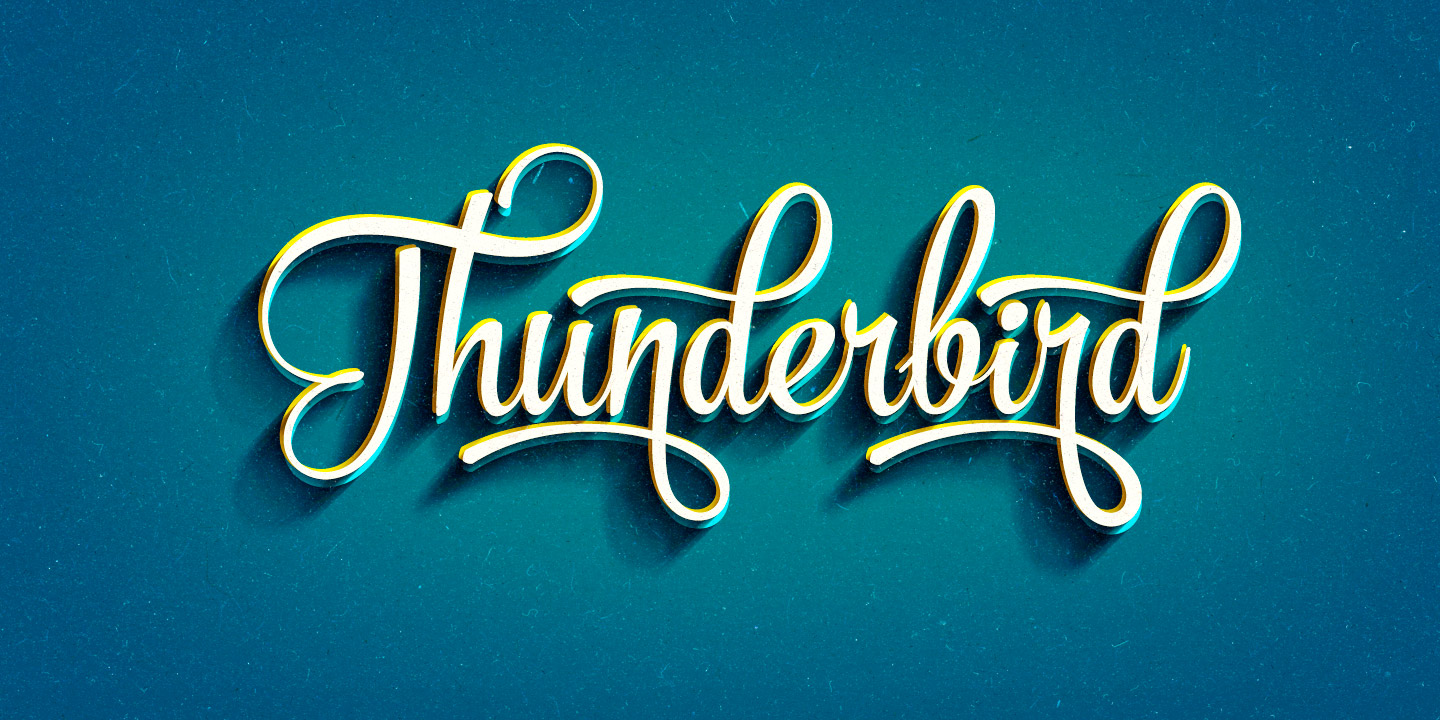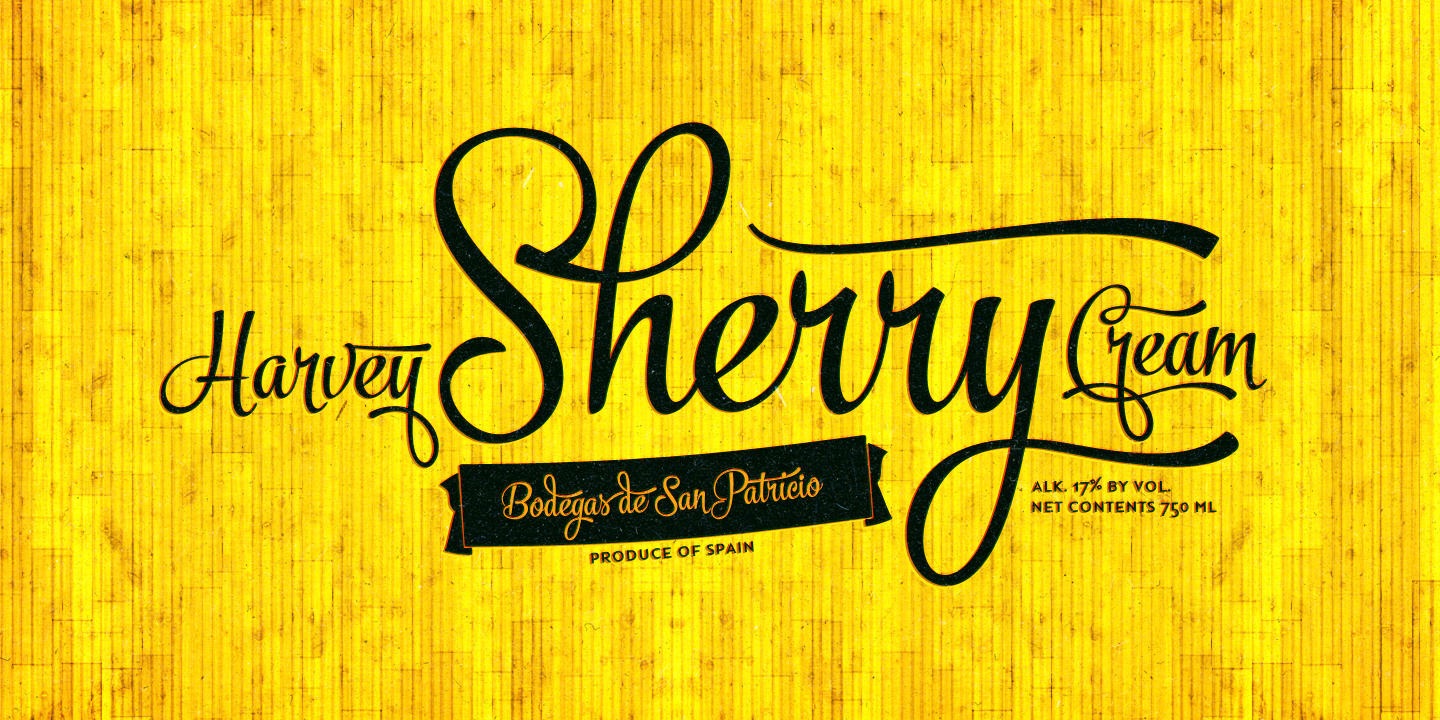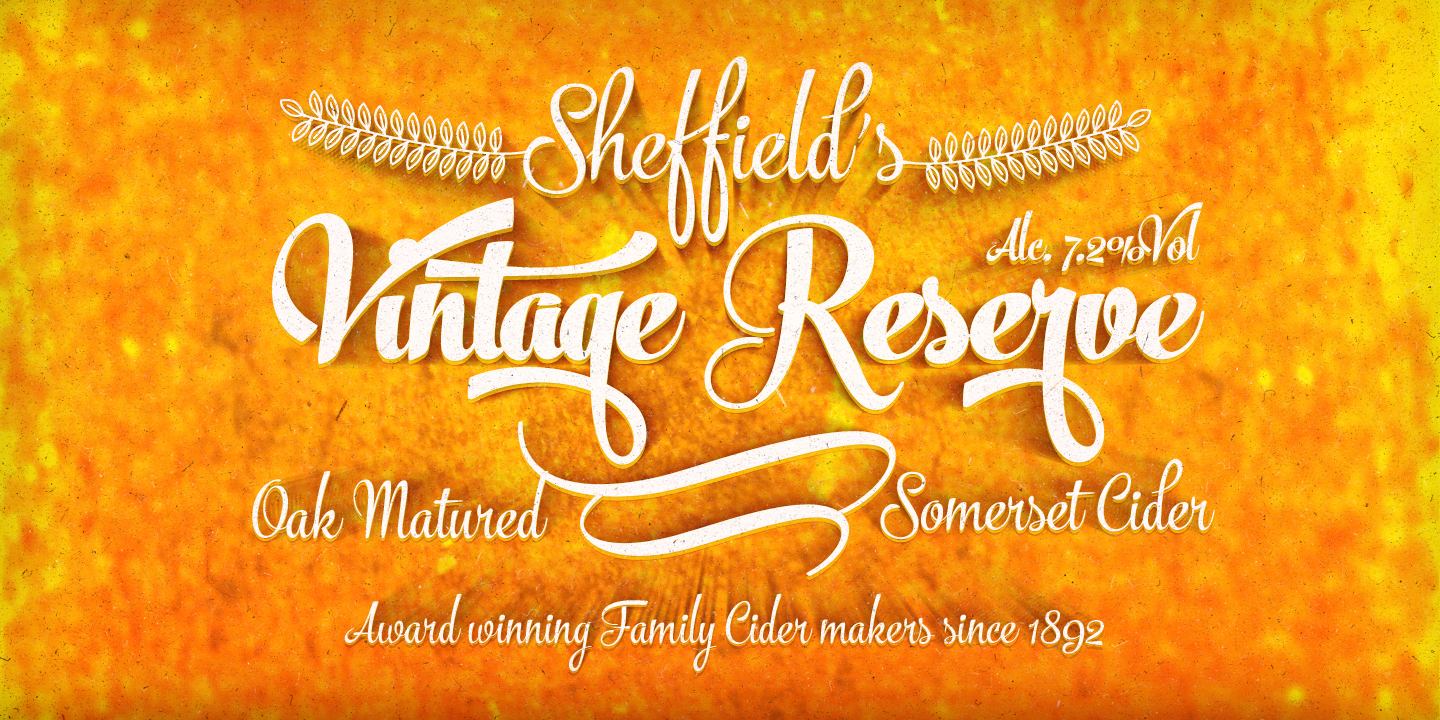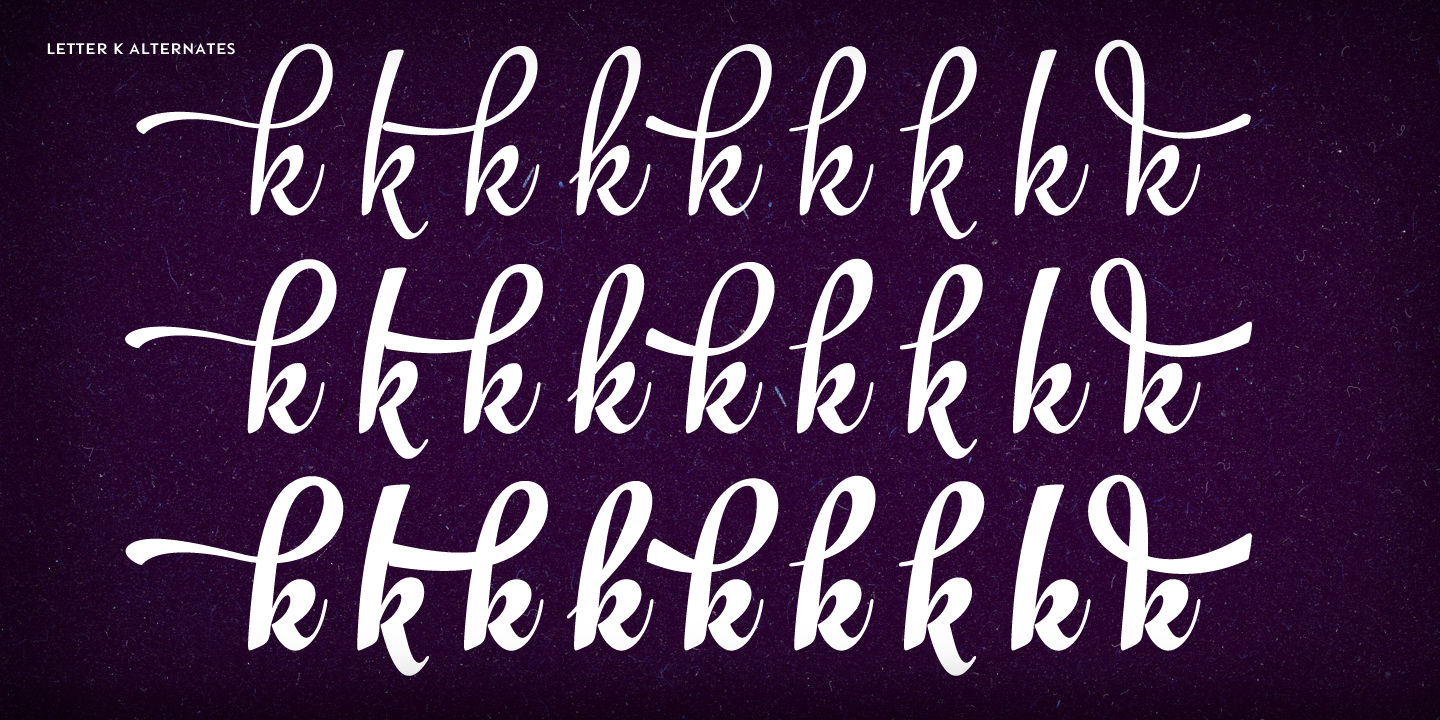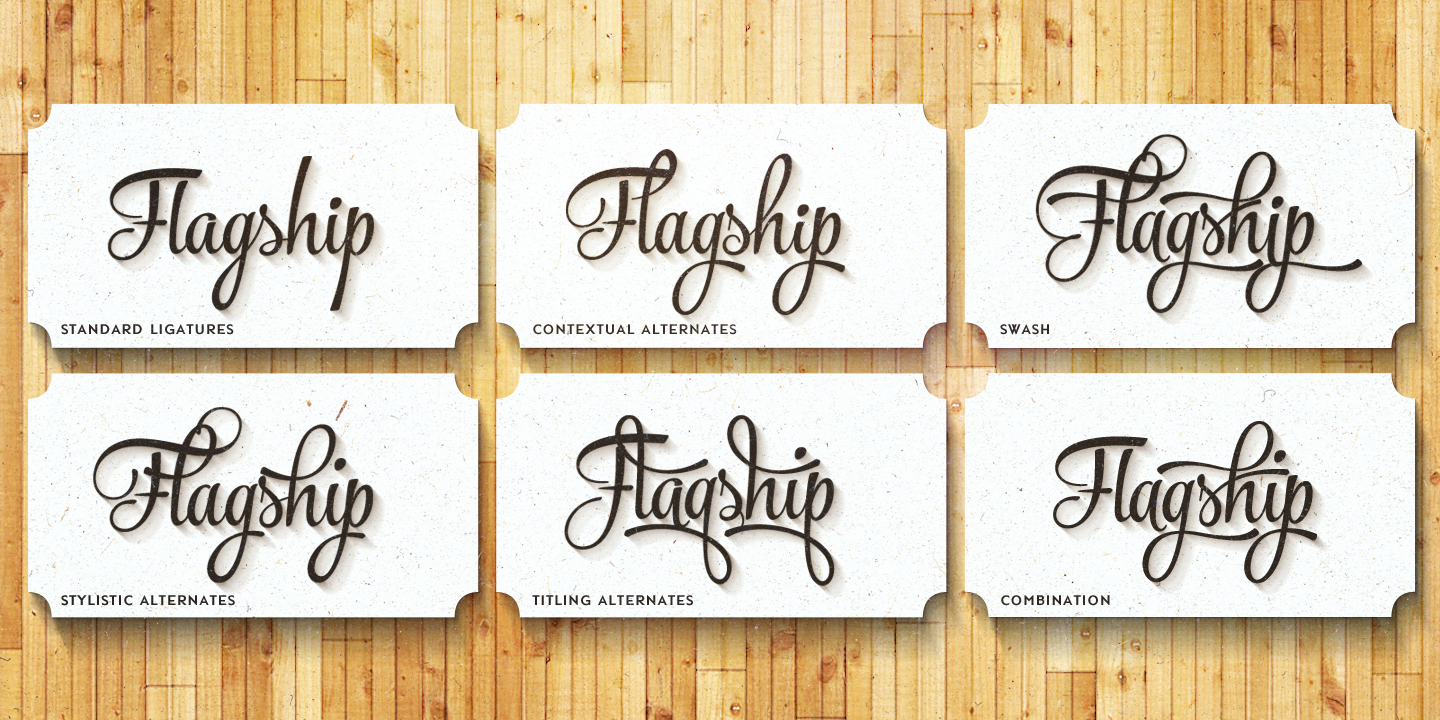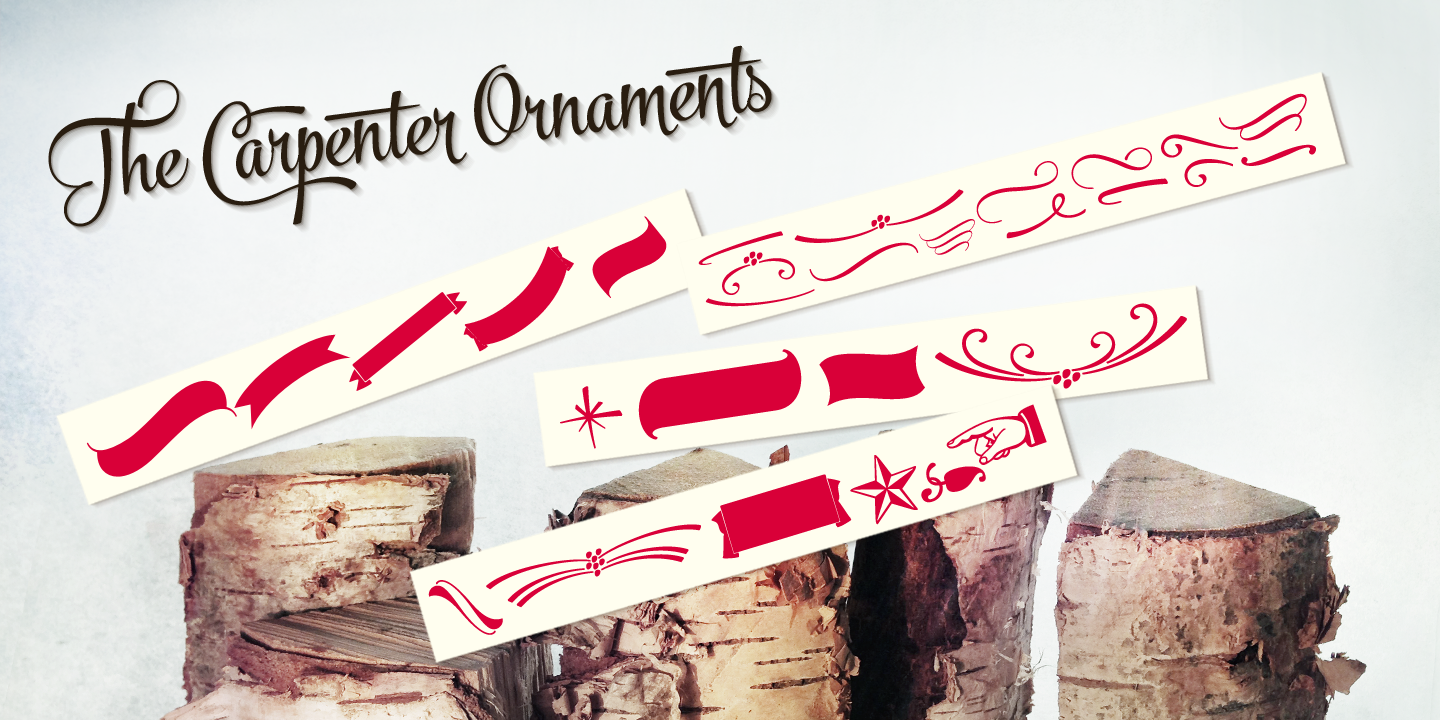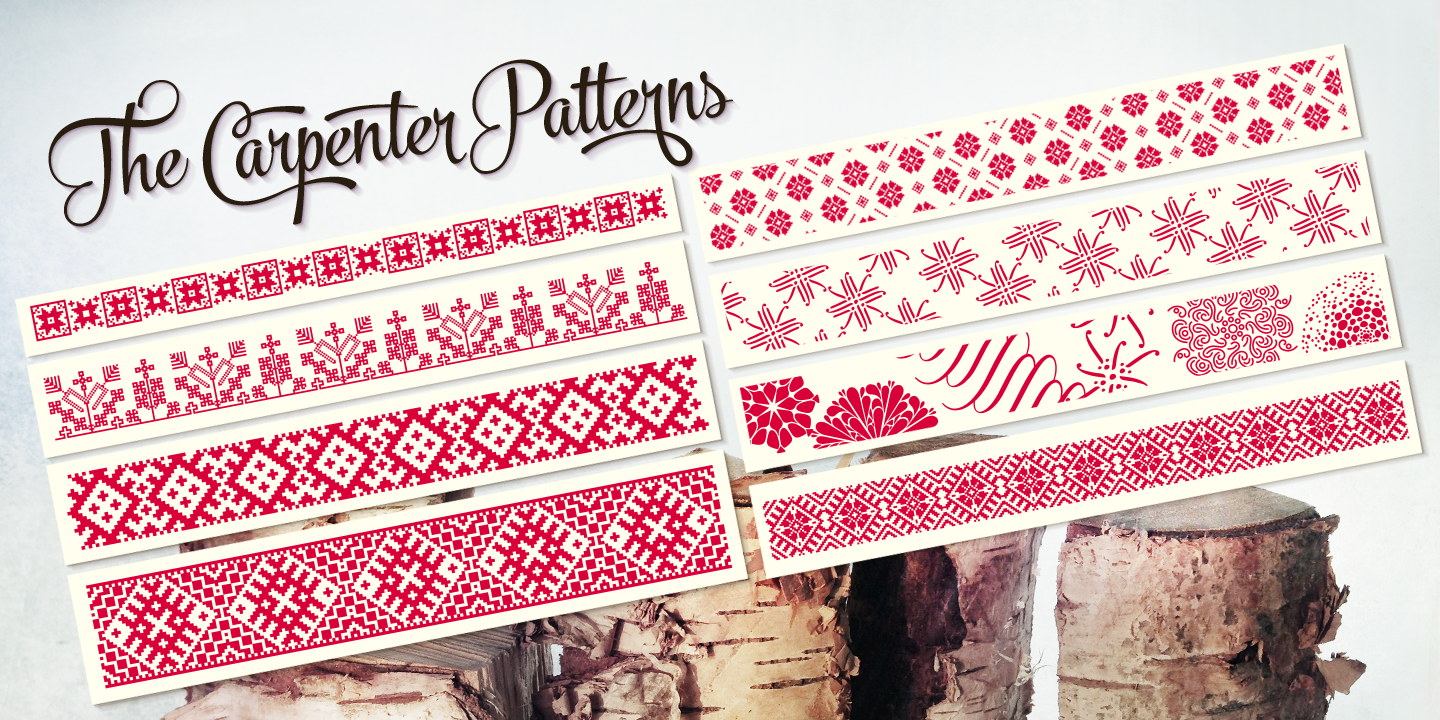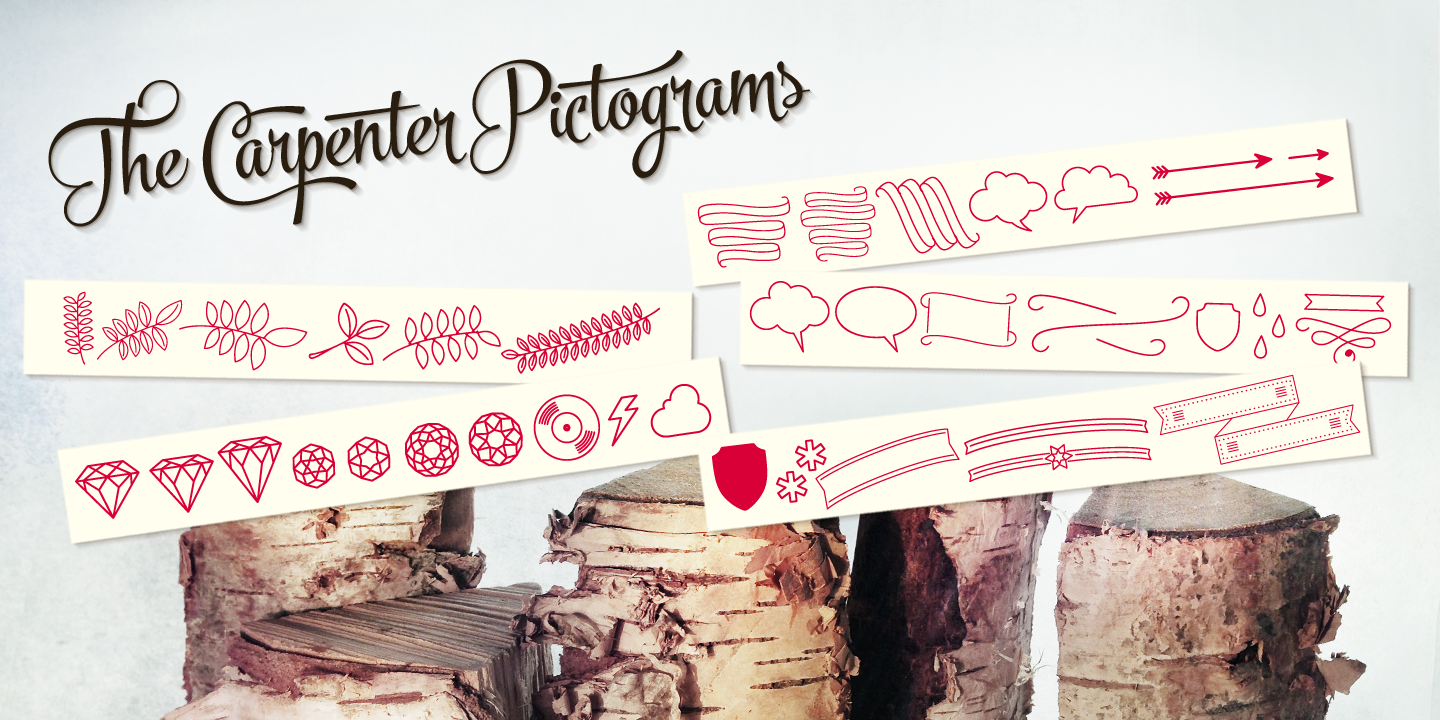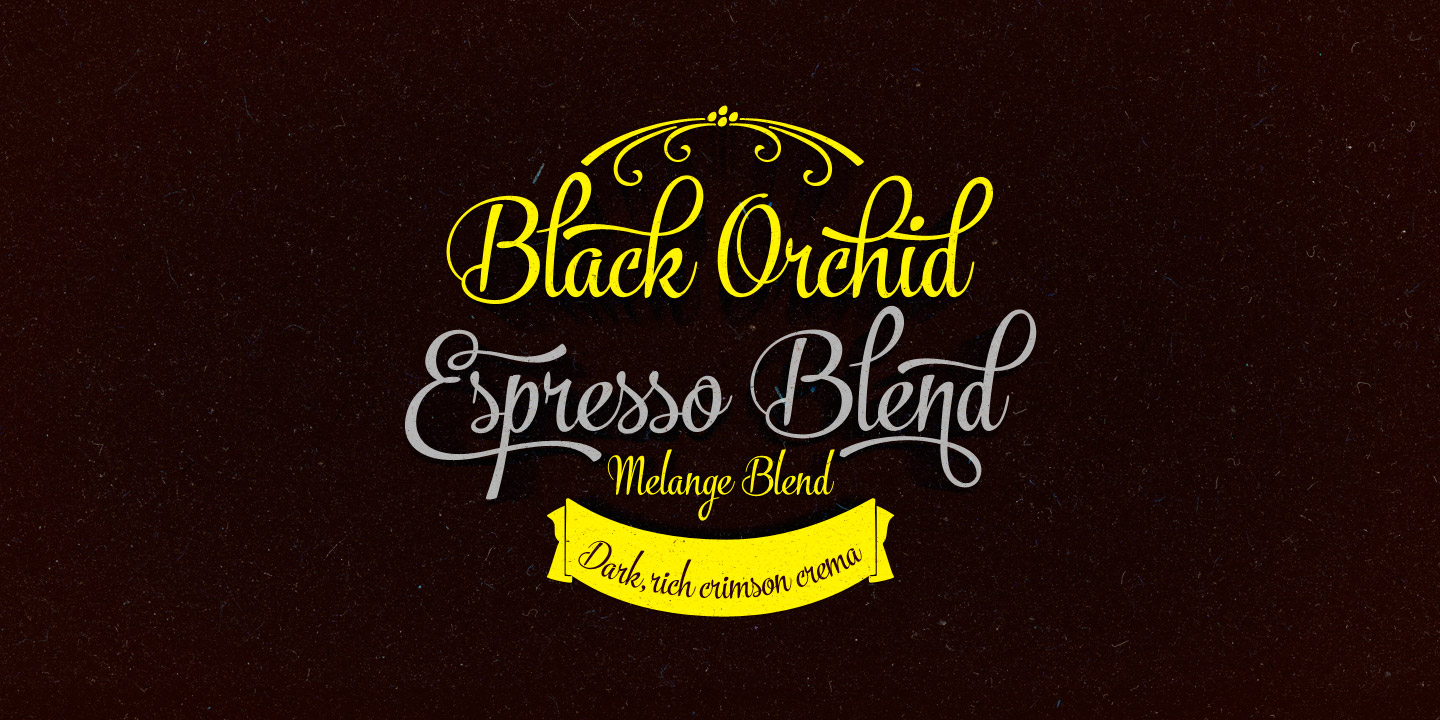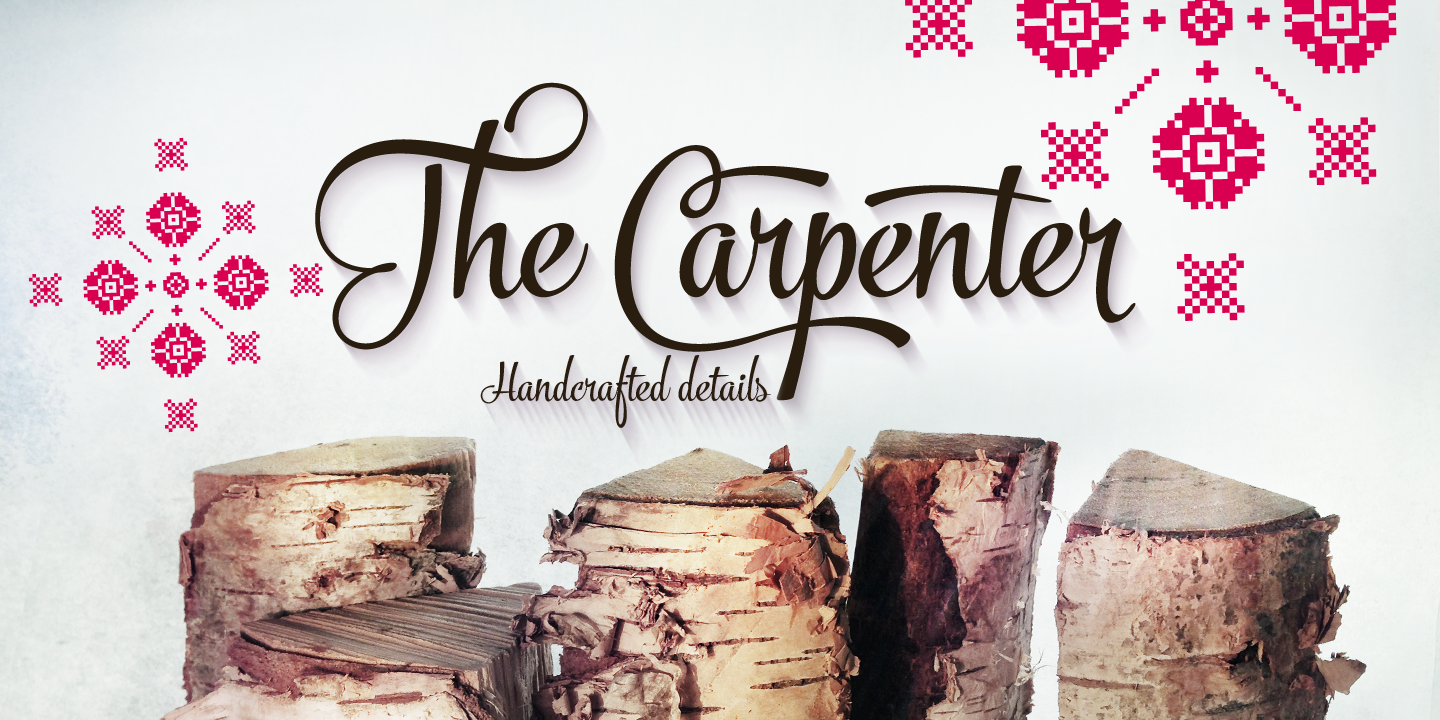
The Carpenter is an effective and easy to use font for creating ambitious headlines, logos & posters with a custom-made feeling. The Carpenter is loosely based on Fenotypes earlier release Mercury Script. For the best price purchase the complete The Carpenter Family.
Ligatures, Alternates, Contextual Alternates, Swash